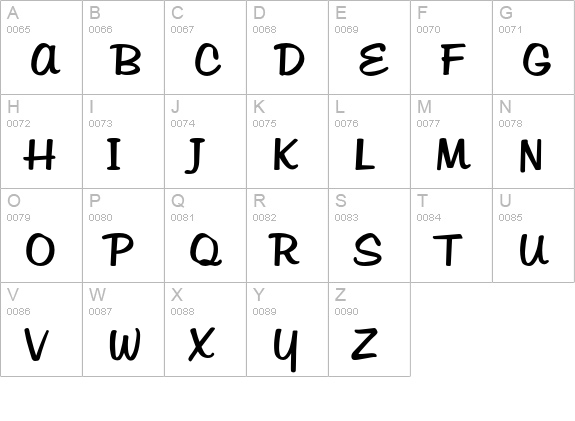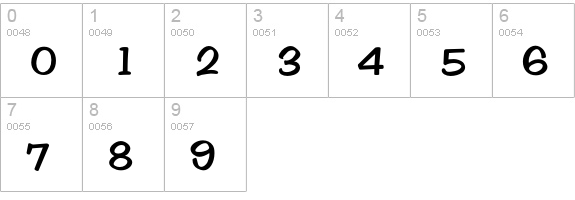
Hudson Font Details
Hudson font is a stylish and modern typeface that exudes sophistication and elegance. With its clean lines and contemporary feel, Hudson is perfect for a wide range of design projects, from branding to editorial layouts. The font features a sleek and versatile design that can adapt to various styles and applications, making it a versatile choice for designers and creatives. The best part about Hudson font is that it is free to download at FontsMarket.com. This means that you can enjoy the beauty and versatility of this font without any cost. Whether you are working on a personal project or a commercial design, Hudson font is a great choice that will elevate your work to the next level. With its free availability and stunning design, Hudson font is a must-have addition to any designer's toolkit. Download it today and see how this beautiful typeface can enhance your projects with its timeless appeal and modern aesthetic.